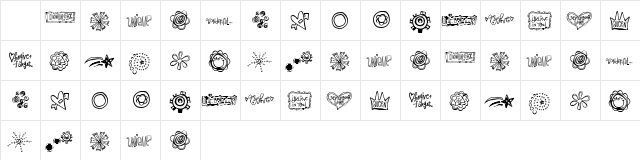
Complete 2Peas Funky Doodles Regular glyph index. Displaying only characters natively supported by 2Peas Funky Doodles Regular font.
2Peas Funky Doodles has an approachable, lighthearted character - its loose, expressive forms are well-suited to children's content, casual branding, and fun-first design.
Font Pairing: Pairs well with a rounded or humanist sans for body copy, maintaining the friendly tone without relying on 2Peas Funky Doodles to carry extended reading.
Pro Tip: Use 2Peas Funky Doodles at larger display sizes where its expressive character can land. Pair with a clean, simple sans for body copy to maintain readability.